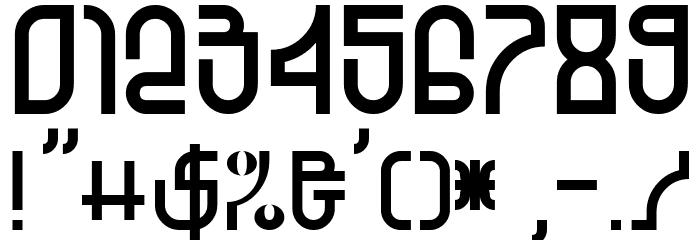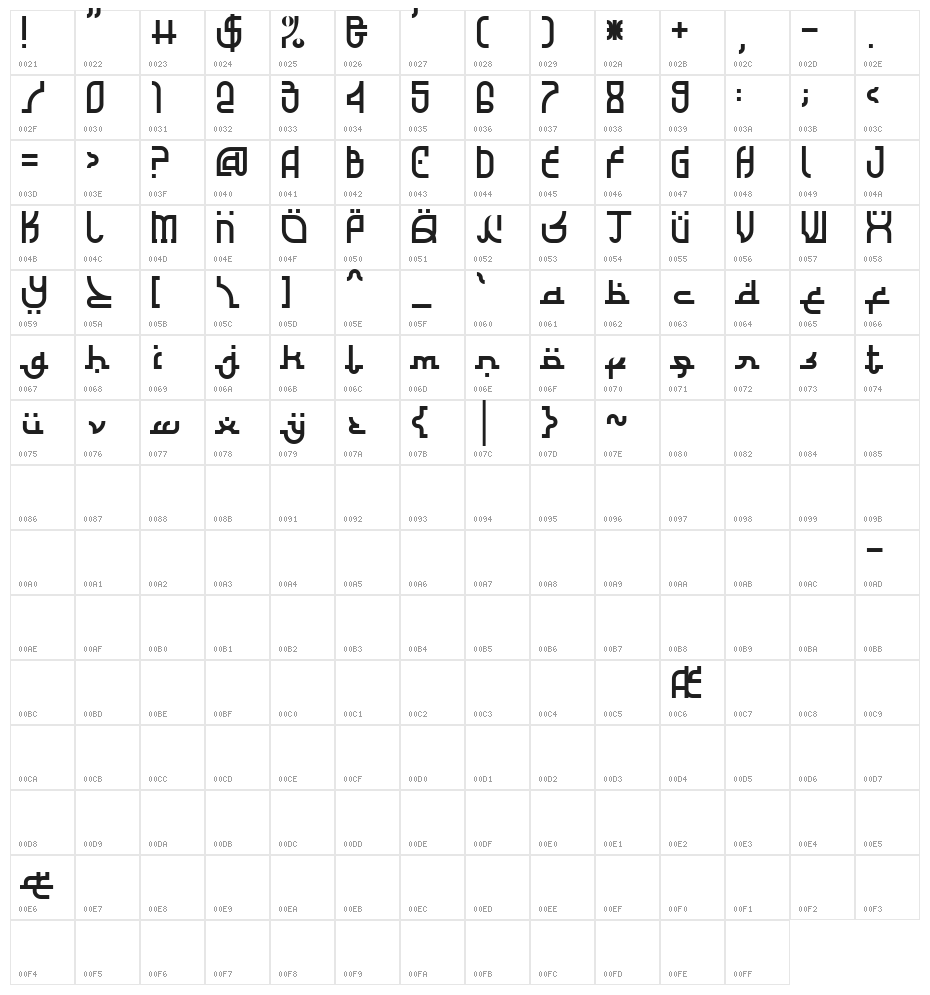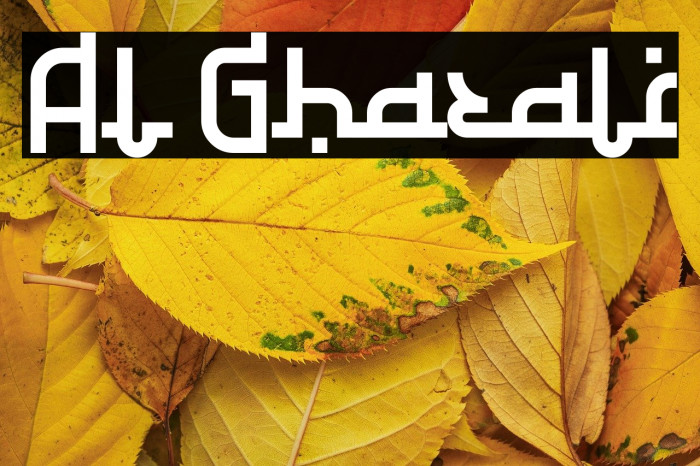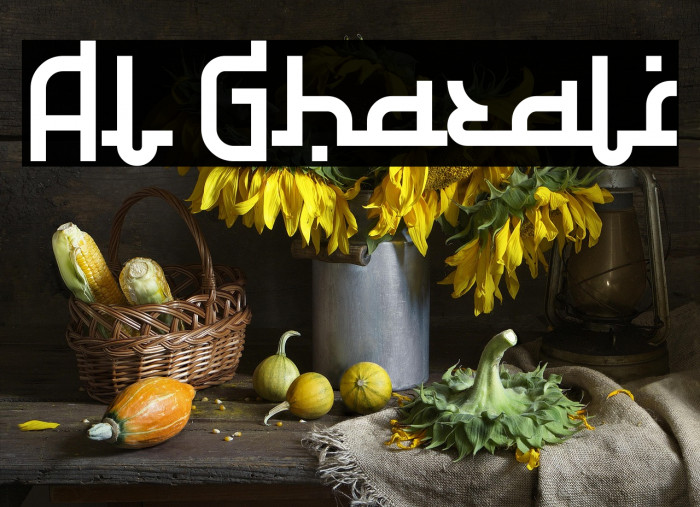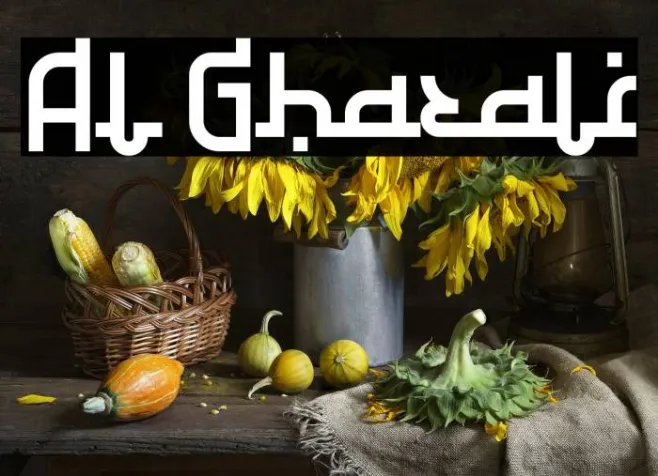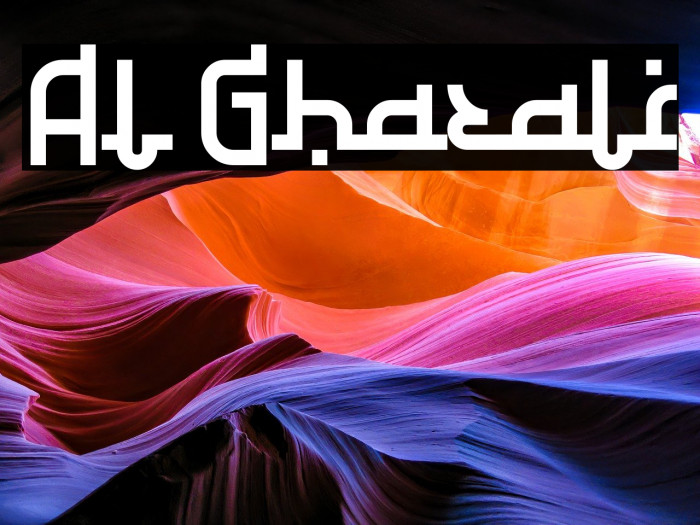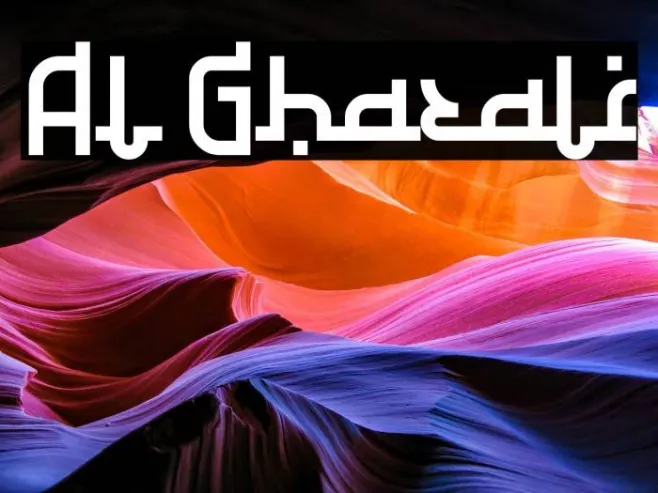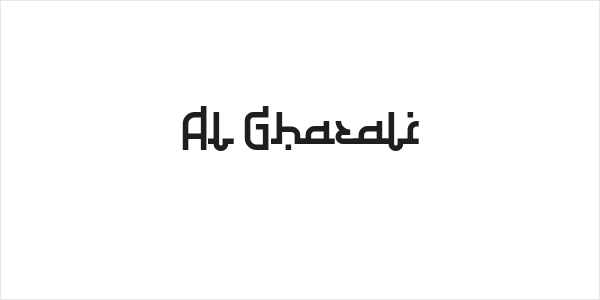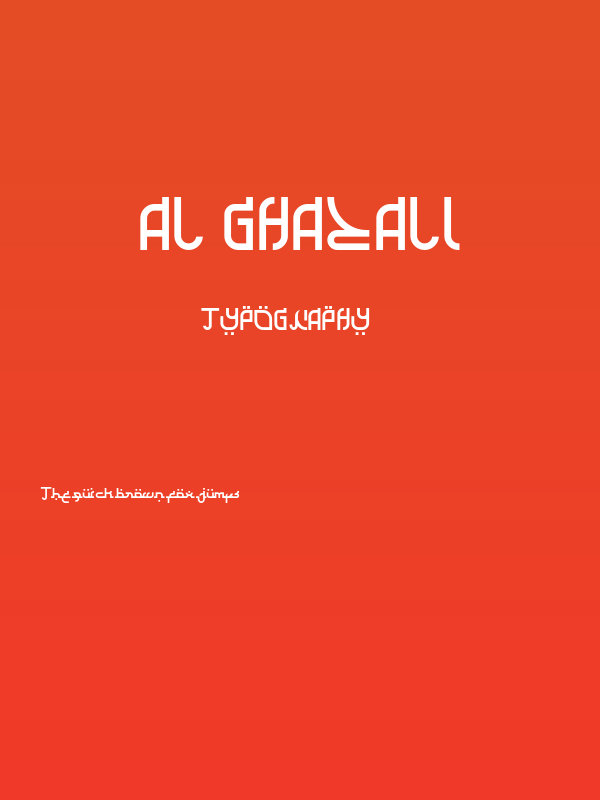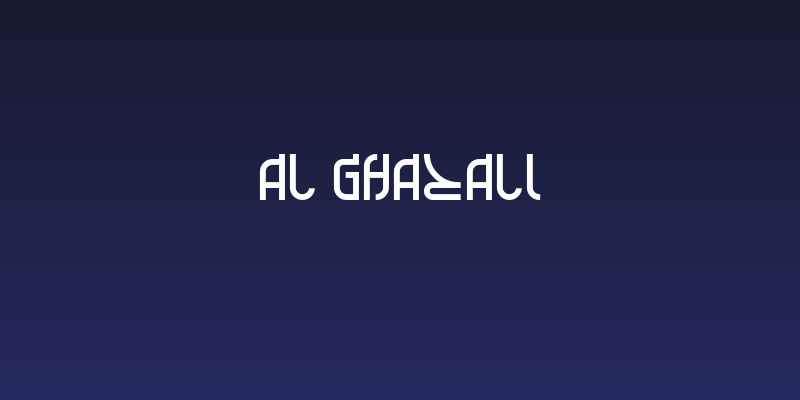
Al Ghazali Font
Al Ghazali Description
This font features a unique blend of geometric and decorative elements, creating a striking visual impact. The uppercase letters are characterized by bold, angular lines and rounded edges, giving them a modern yet slightly retro feel. The lowercase letters maintain a consistent style, with some characters featuring distinctive loops and curves that add to the font's decorative nature. The numerals are bold and clear, ensuring readability while maintaining the overall aesthetic. Special characters are creatively designed, incorporating the same geometric style. This font's distinctiveness makes it suitable for projects that require a bold and artistic touch.